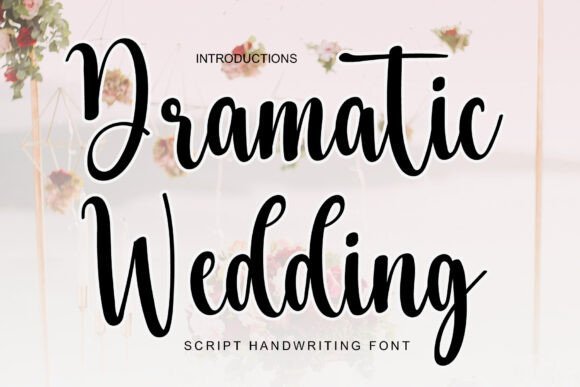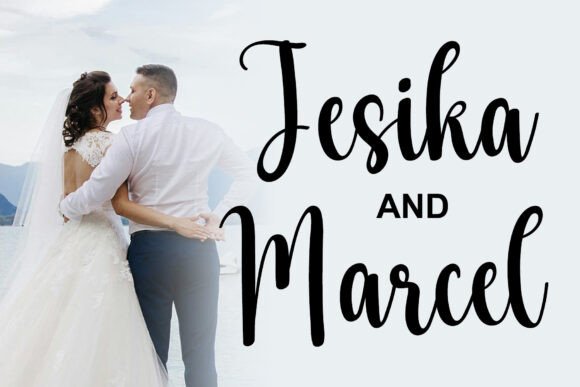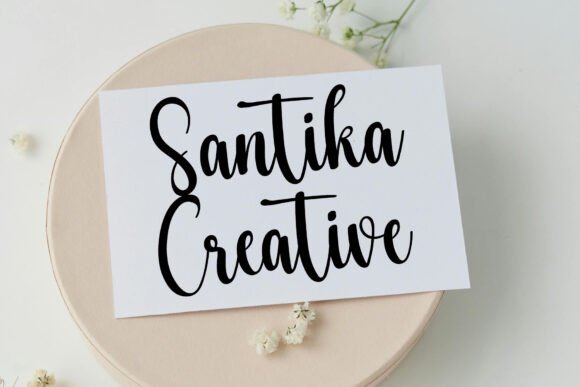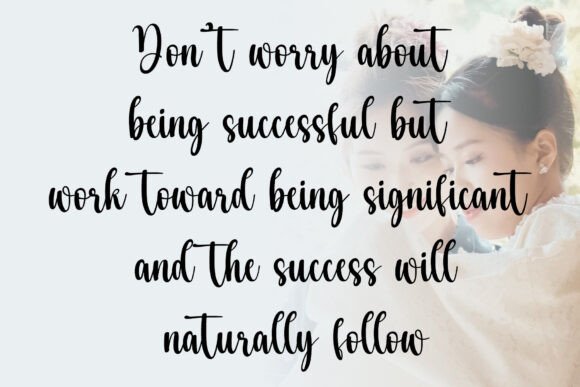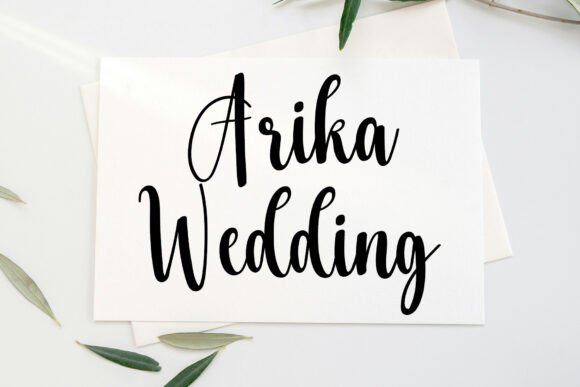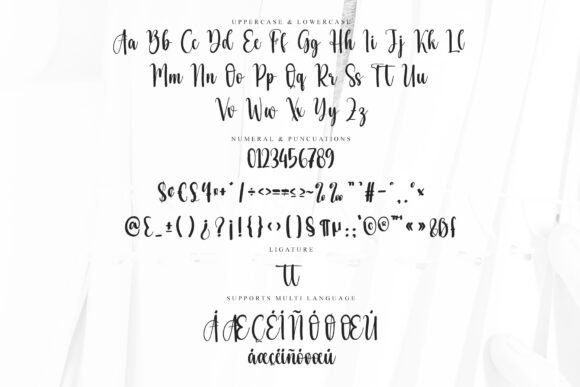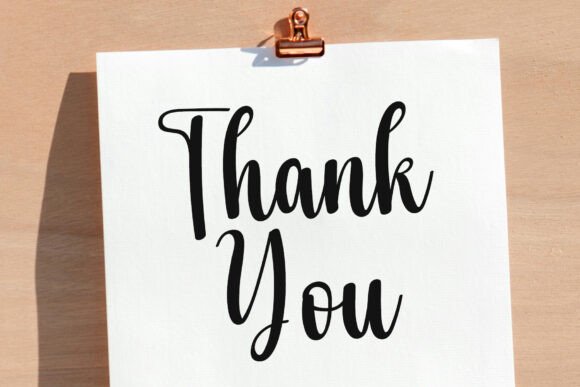
Unleash the Romance: Discover the Dramatic Wedding Font
There’s something magical about the moment you start designing a wedding invitation or a romantic card for a loved one. The anticipation builds, and the creative juices start flowing as you envision the perfect combination of words and images. For designers, this moment is even more special, as it’s an opportunity to bring joy and happiness to others through their work.
That’s where the Dramatic Wedding Font comes in – a delicate, elegant, and flowing handwritten font that’s perfect for making your projects truly special. With its incredibly distinct and timeless style, this font is a valuable addition to any designer’s toolkit, allowing you to create spectacular designs that will leave a lasting impression. And with its PUA encoding, accessing all the glyphs and swashes is a breeze.
Dramatic Wedding Font Key Features
- Font Style: A dramatic, elegant script font ideal for wedding invitations and other special occasions.
- Unique Characteristics: Features intricate flourishes, elegant swirls, and ornate details, making it a standout choice for wedding and special event invitations.
- Language Support: Supports Latin, Cyrillic, and Greek alphabets, as well as a range of special characters and symbols.
Dramatic Wedding Font Review
I recently had the chance to work with the Dramatic Wedding Font, and I have to say, it’s a real showstopper. ✨ The font’s elegant script style is perfect for adding a touch of luxury to wedding invitations, programs, and other wedding stationery.
- The font’s dramatic flair makes it ideal for romantic and whimsical wedding themes.
- It’s available in a range of font weights and styles, making it easy to customize to your design needs.
- The font is highly customizable, allowing you to adjust the spacing, size, and color to match your design vision.
However, there are a few limitations to keep in mind: ⚠️ The font can be a bit overwhelming if used in large quantities or in conjunction with bold text. It’s also worth noting that some of the more ornate flourishes may not render well in certain font sizes or resolutions.
Overall, I’d say the Dramatic Wedding Font is a great choice for designers looking to add a touch of drama and romance to their wedding designs. While it may have some limitations, its elegant script style and high level of customization make it a versatile and effective choice for any wedding project.
Tips for Getting the Most Out of the Dramatic Wedding Font